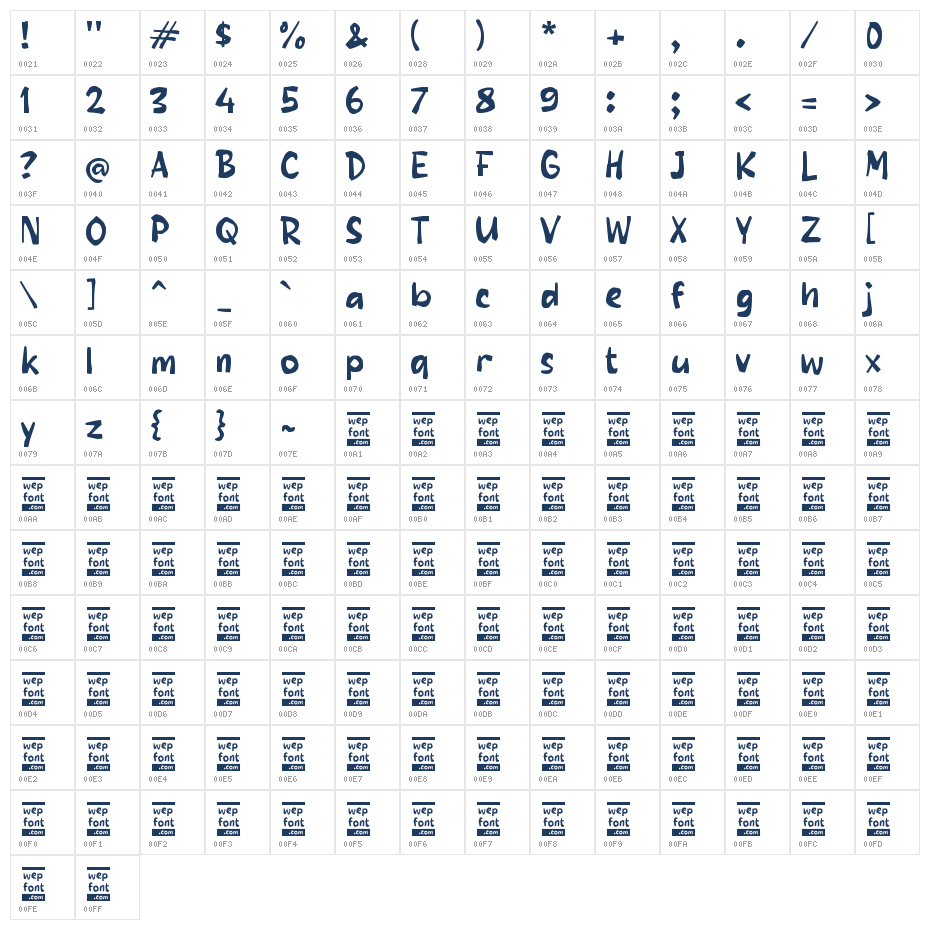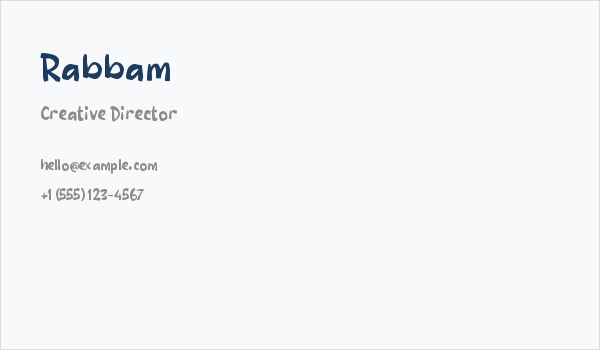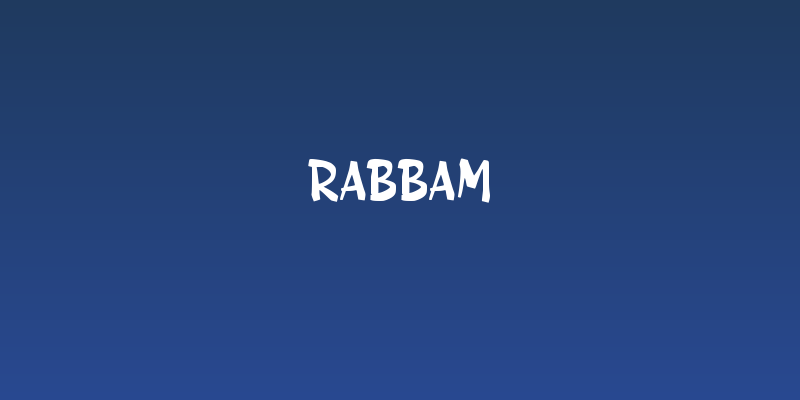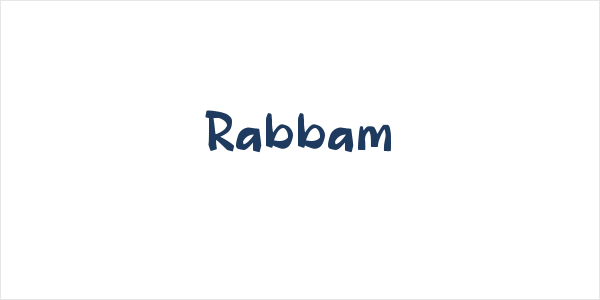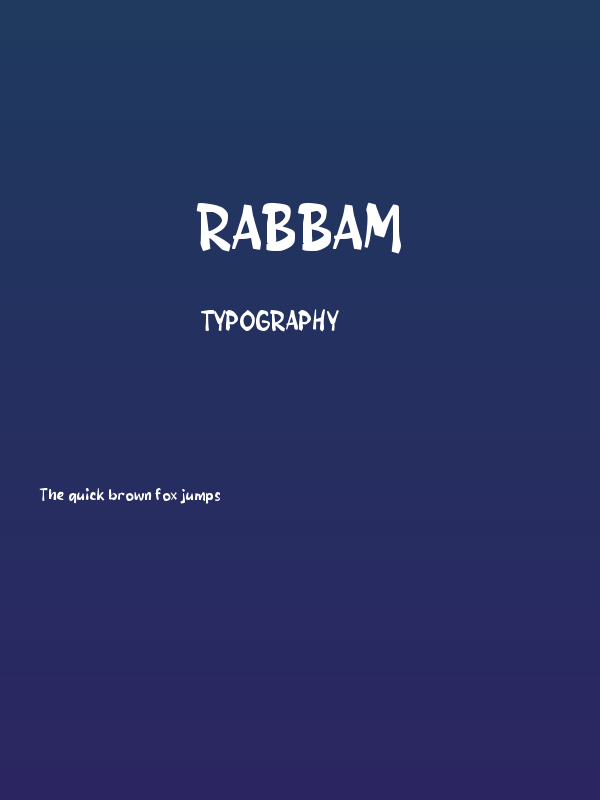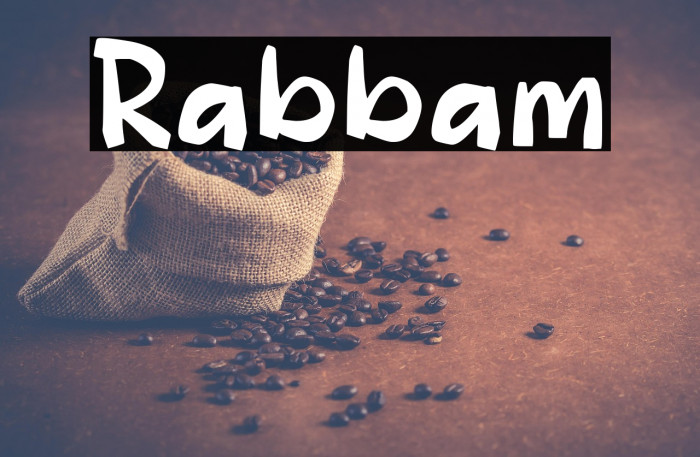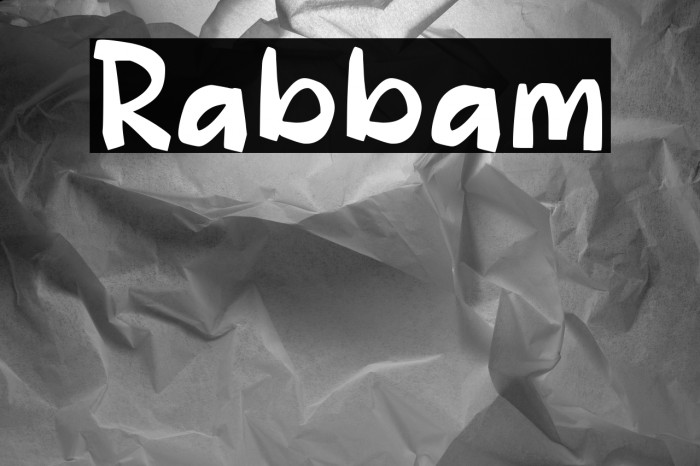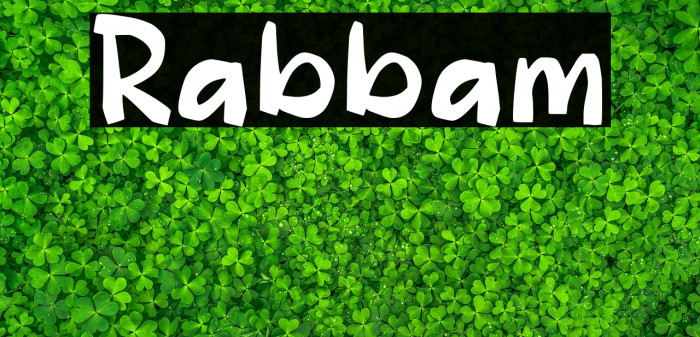
Rabbam Font
Rabbam Description
A playful, informal handwritten style font with irregular, slightly exaggerated letterforms.
| Overall Style | Casual, Playful, Informal |